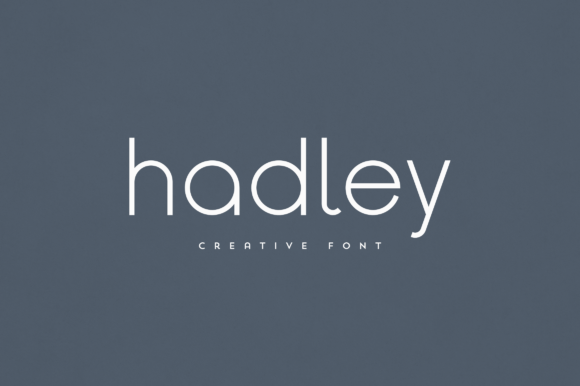
Introducing Hadley Font, the perfect choice for those looking to elevate their fashion logo designs. This elegant sans-serif font, created by vladfedotovv, is a must-have for any designer looking to add a touch of sophistication and uniqueness to their typography.
With Hadley Font, you can bring your branding projects, home-ware designs, product packaging, and magazine headers to life. Its versatility makes it the perfect choice for any design project, whether you're creating a stylish text overlay for a background image or designing a high-end fashion logo.
Hadley Font is not just a font, it's an experience. Its captivating curves and sharp edges make it stand out from the crowd and grab the attention of your audience. It's a font that exudes confidence, elegance, and style, making it the perfect choice for designers who want to create a lasting impression.
Whether you're designing for a high-end fashion brand or a trendy lifestyle blog, Hadley Font is the perfect choice. Its clean lines and bold strokes make it easy to read, while its unique style adds a touch of sophistication to any design.